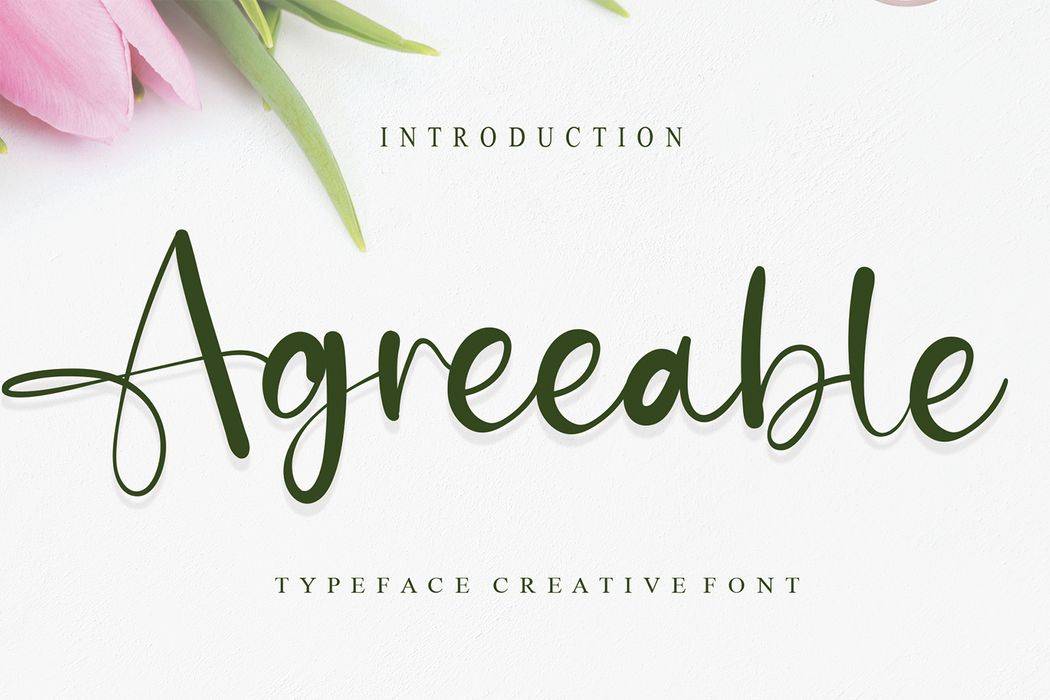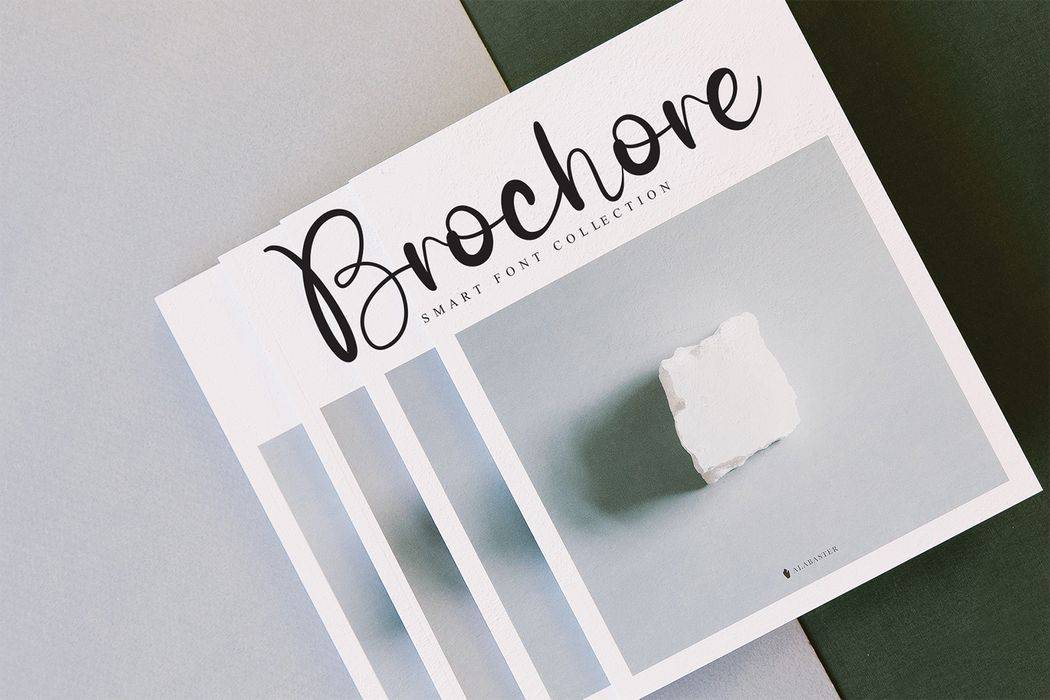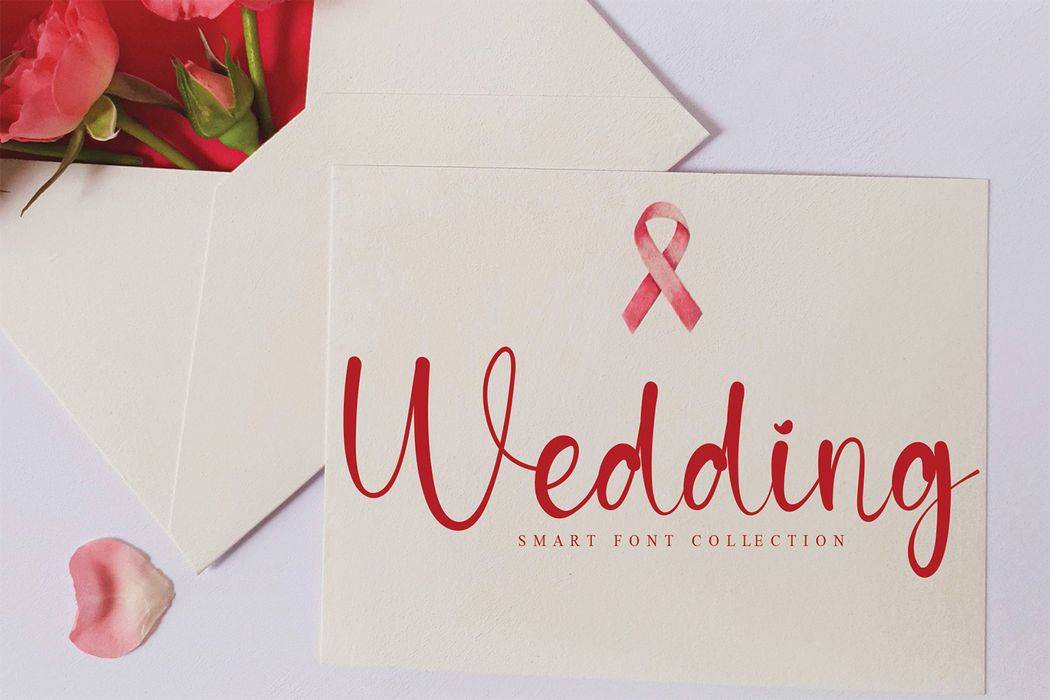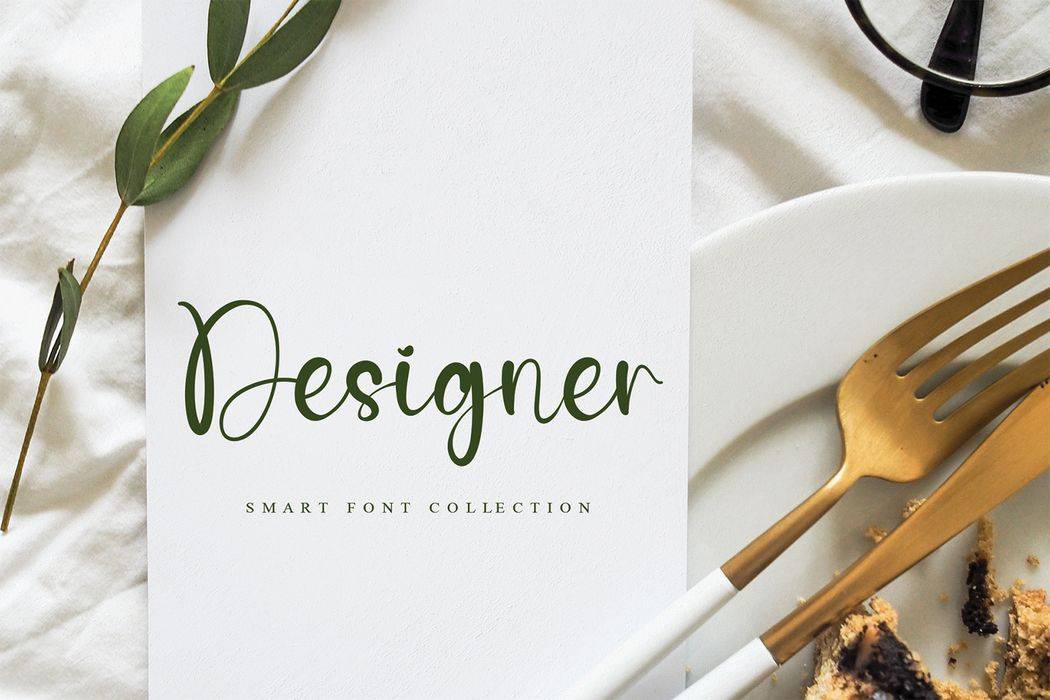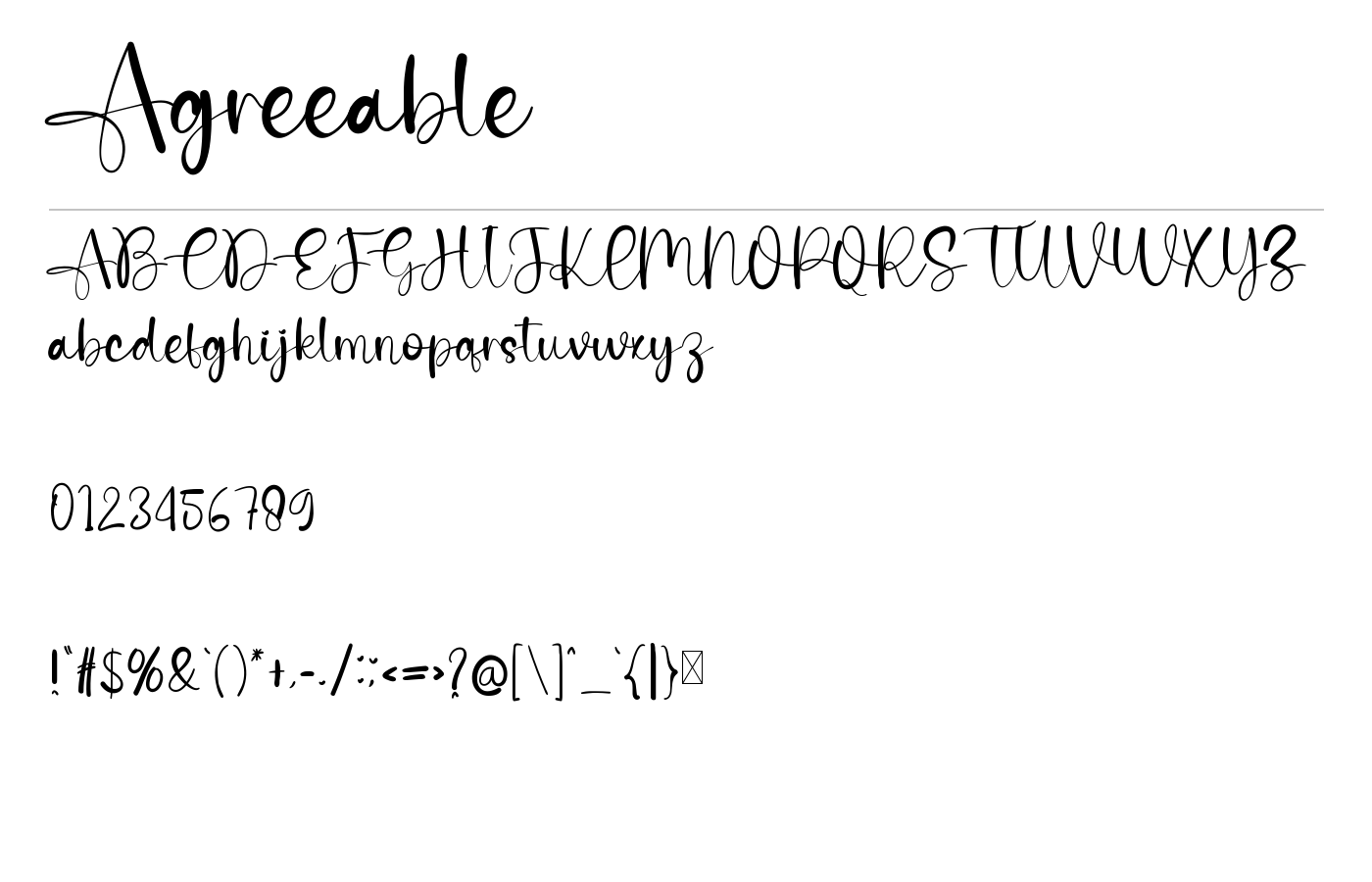
Agreeable is a playful and elegant script font with a casual, hand-lettered feel that combines smooth strokes and charming flourishes. Its light to regular weight, high x-height, and lively letterforms make it perfect for creative projects such as invitations, greeting cards, and branding that aim for a friendly, approachable vibe. This font shines in expressive headlines and decorative text, lending warmth and personality wherever a personal touch is desired.
Agreeable Font
About Agreeable Font